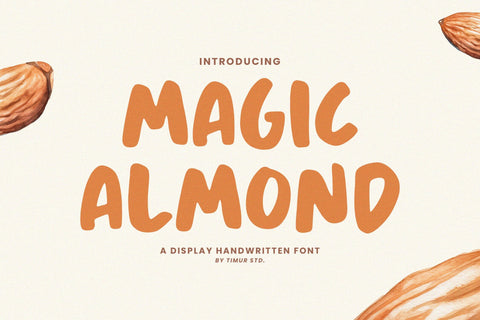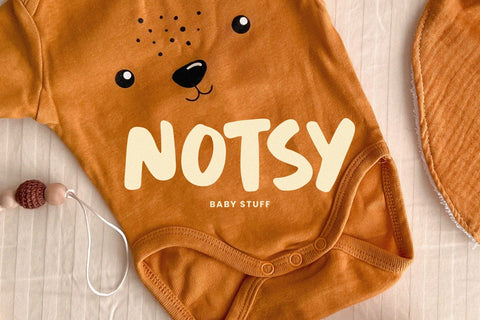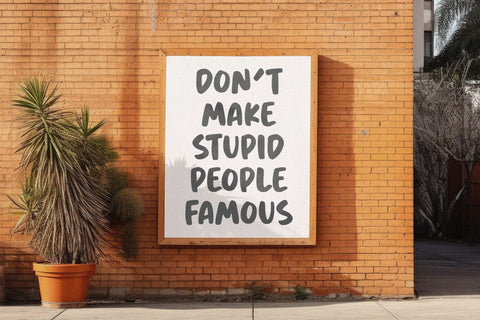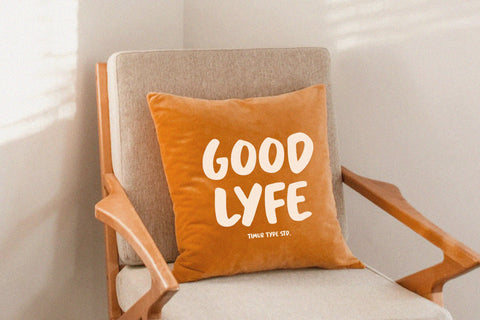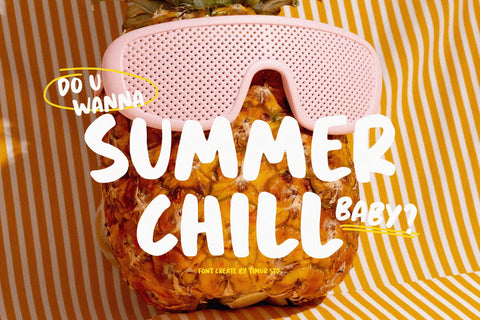
Magic Almond - Display Handwritten Font
Magic Almond is a Display Handwritten Font
This font is a whimsical handwritten font that exudes charm and elegance. With its fluid, flowing strokes and playful curves, this font captures the essence of personal touch and creativity. Ideal for invitations, greeting cards, and any design that needs a sprinkle of enchantment, Magic Almond combines the grace of calligraphy with a friendly, approachable vibe. Its unique character set makes each letter a work of art, perfect for adding a dash of magic to your projects.